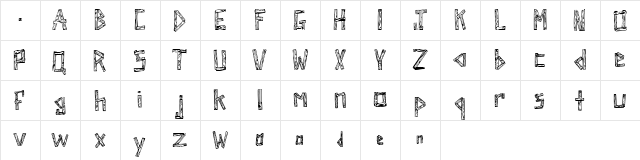
SketchBoards Regular
| Foundry | Character |
| Designer | Character, based on Awesome Alphabets by Mike Artell, 1999 |
Design Context for SketchBoards Typeface
SketchBoards is a composed and adaptable typeface that performs quietly and consistently across a wide range of design contexts.